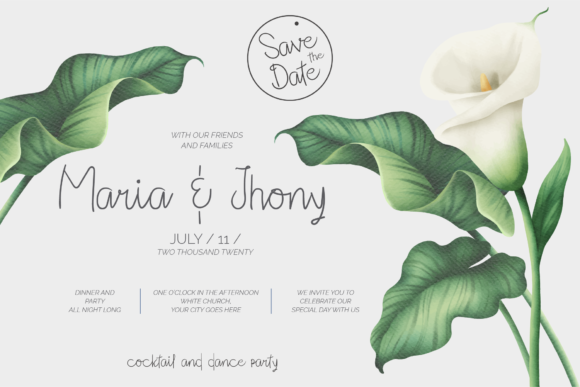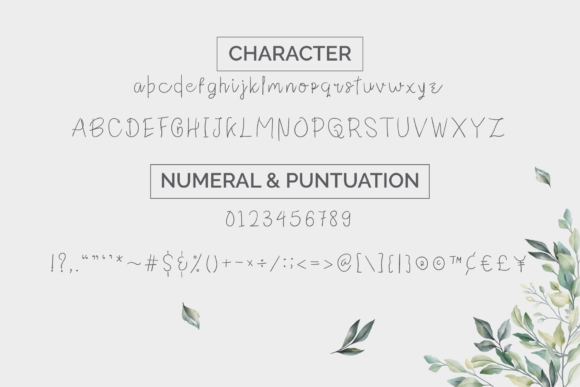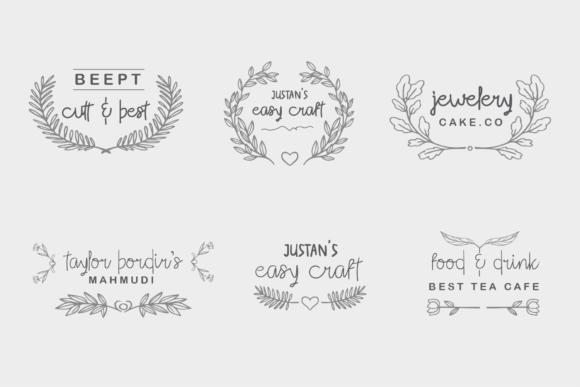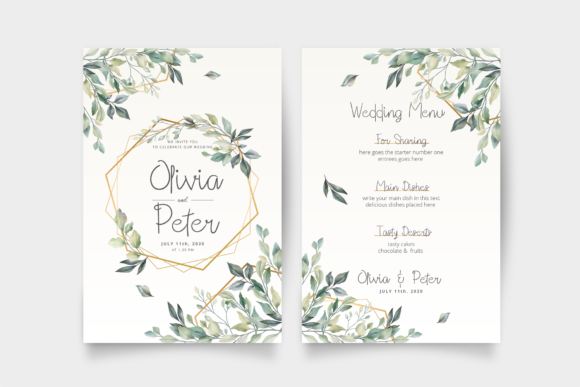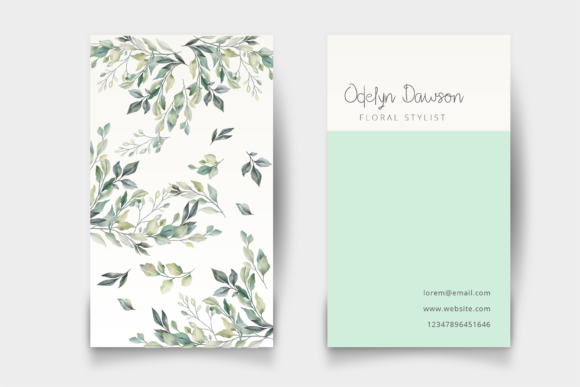
The Cute & Funny Font: A Magical Handwritten Delight
Have you ever been in the middle of a design project, and suddenly, you’re stuck on finding the perfect font? I recall a particularly frustrating experience while working on a wedding invitation design. My client wanted something elegant, yet playful, and I was determined to deliver. That’s when I stumbled upon the Cute & Funny font, and it completely transformed my design. In this article, we’ll dive into the world of this magical handwritten font and explore its features, uses, and alternatives.
A Personal Review: What I Love and What to Watch Out For
- ✨ Elegant and playful at the same time, making it perfect for a wide range of design projects
- ✅ Highly versatile, suitable for branding, headings, wedding designs, invitations, signatures, logos, labels, and more
- ✅ Beautifully crafted with a touch of sophistication, adding a professional touch to any design
- ⚠️ Some users might find the font a bit too ornate for very casual or minimalist designs
- ⚠️ Limited availability of certain OpenType features in certain software or platforms
The Cute & Funny font was crafted with a passion for elegance and playfulness. Its creator aimed to design a font that would bring a touch of sophistication to a wide range of design projects, from formal events to creative endeavors. The result is a beautiful, handwritten font that exudes warmth and personality.
| Font Name | Cute & Funny Font |
| Author | twinletter |
| What type of designs is Cute & Funny best suited for? | Cute & Funny is a versatile font that can be used for a wide range of designs, including branding, headings, wedding designs, invitations, signatures, logos, labels, and more. |
| Does Cute & Funny support OpenType features? | Yes, Cute & Funny supports OpenType features, including stylistic alternates and glyphs, which can be accessed through compatible software like Adobe Photoshop or Illustrator. |